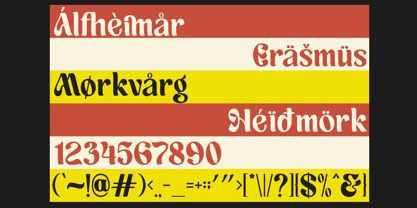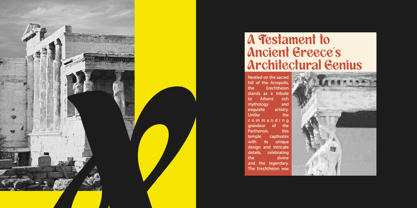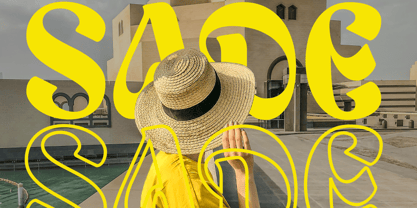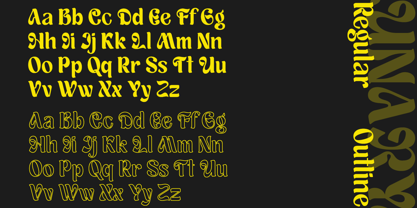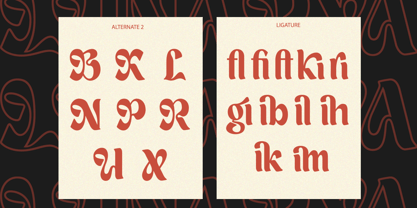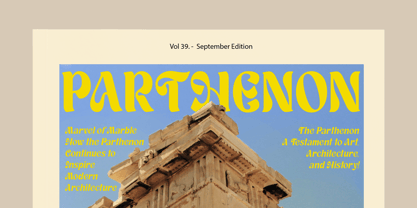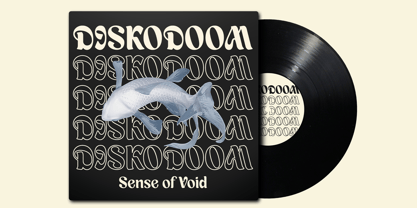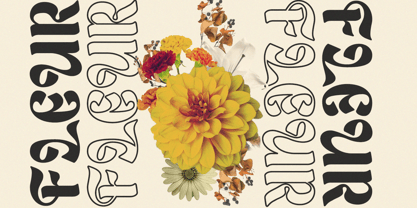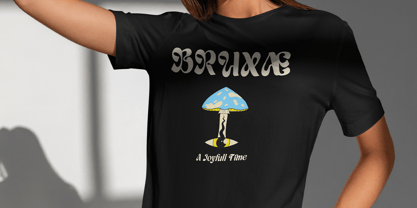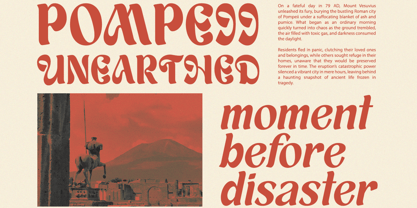
Lunarya
by Say Studio
Introducing
Lunarya is a Unique Display Font with Outline and Italic Style. All capital letters with psychedelic style. Lunarya have some Special Alternates and ligatures some fun nuance to your design. This font is perfect for t-shirt design, book cover, title, and many more.
- Lunarya Regular
- Lunarya Outline
- Lunarya Italic
- Multilingual Support
- Stylistic Alternates
- Ligatures